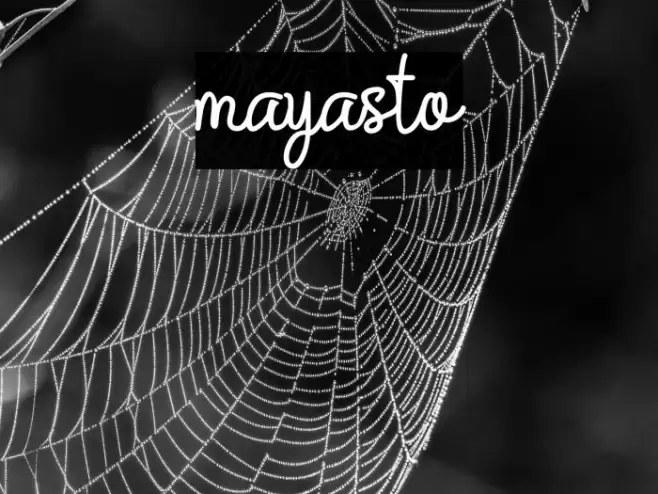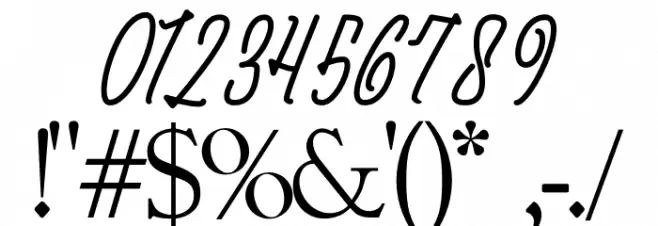
mayasto Font
mayasto Description
This font features a flowing, cursive style with elegant loops and swashes, giving it a handwritten appearance. The uppercase letters are particularly ornate, with exaggerated curves and flourishes that add a sense of sophistication and flair. The lowercase letters maintain a consistent style, with smooth connections between characters that enhance readability. Numbers and special characters are designed to match the overall aesthetic, ensuring a cohesive look across all text. This font is ideal for projects that require a personal touch or a sense of elegance.
A cursive, handwritten-style font with elegant loops and swashes from Uncategorized fonts.
- Proposed Projects: Ideal for wedding invitations, greeting cards, branding, and logos.
- Overall Style: Elegant, Handwritten
- Use Case: Logos, Invitations, Decorative text